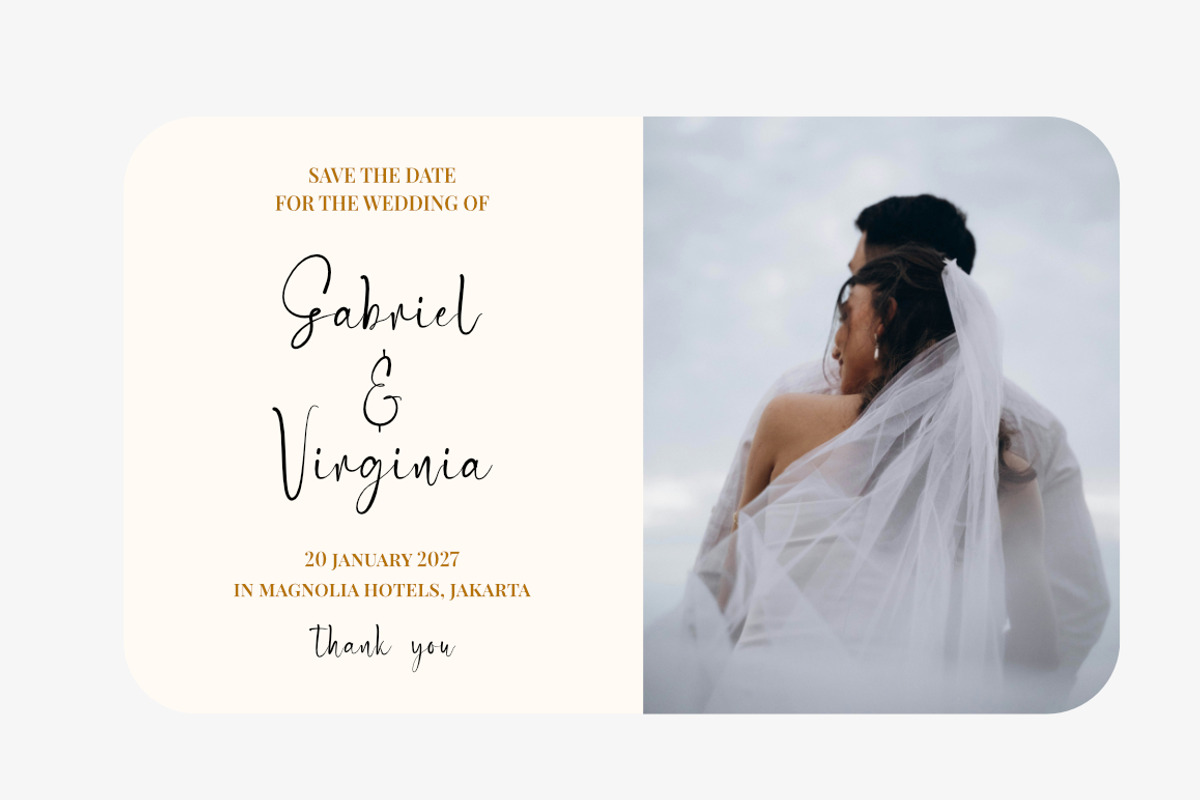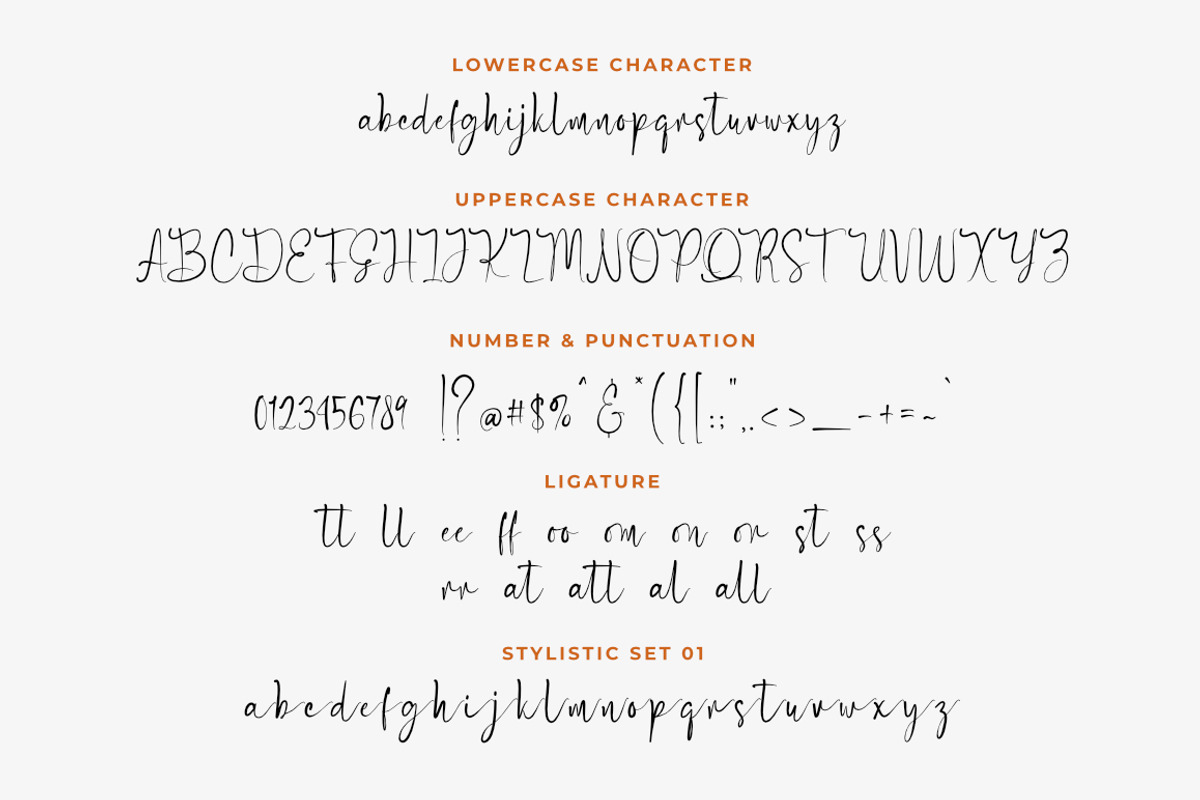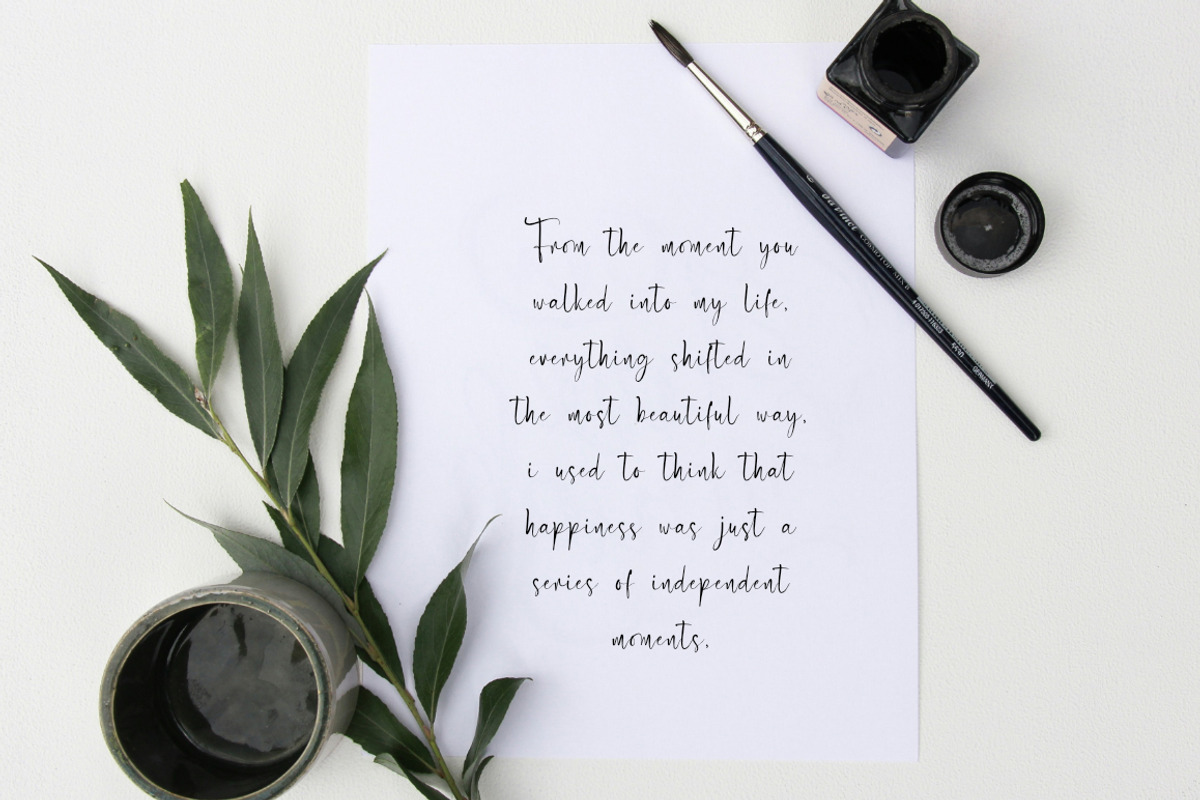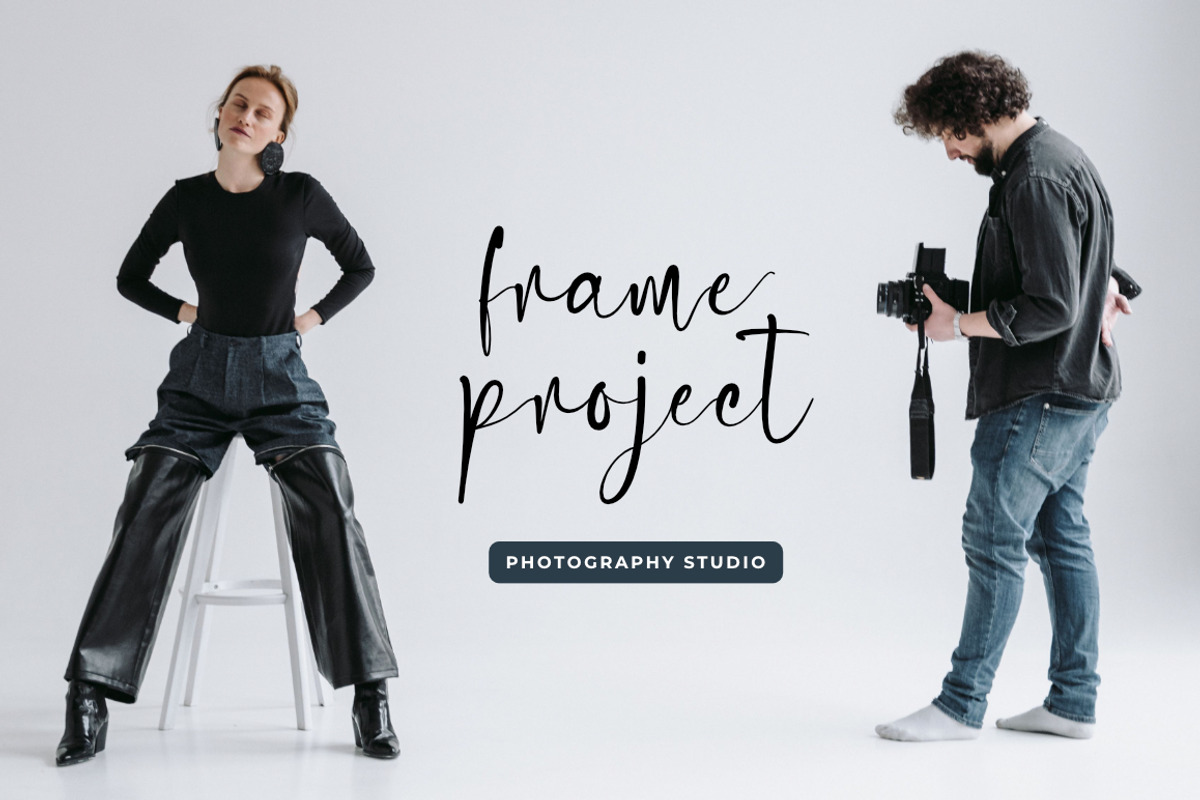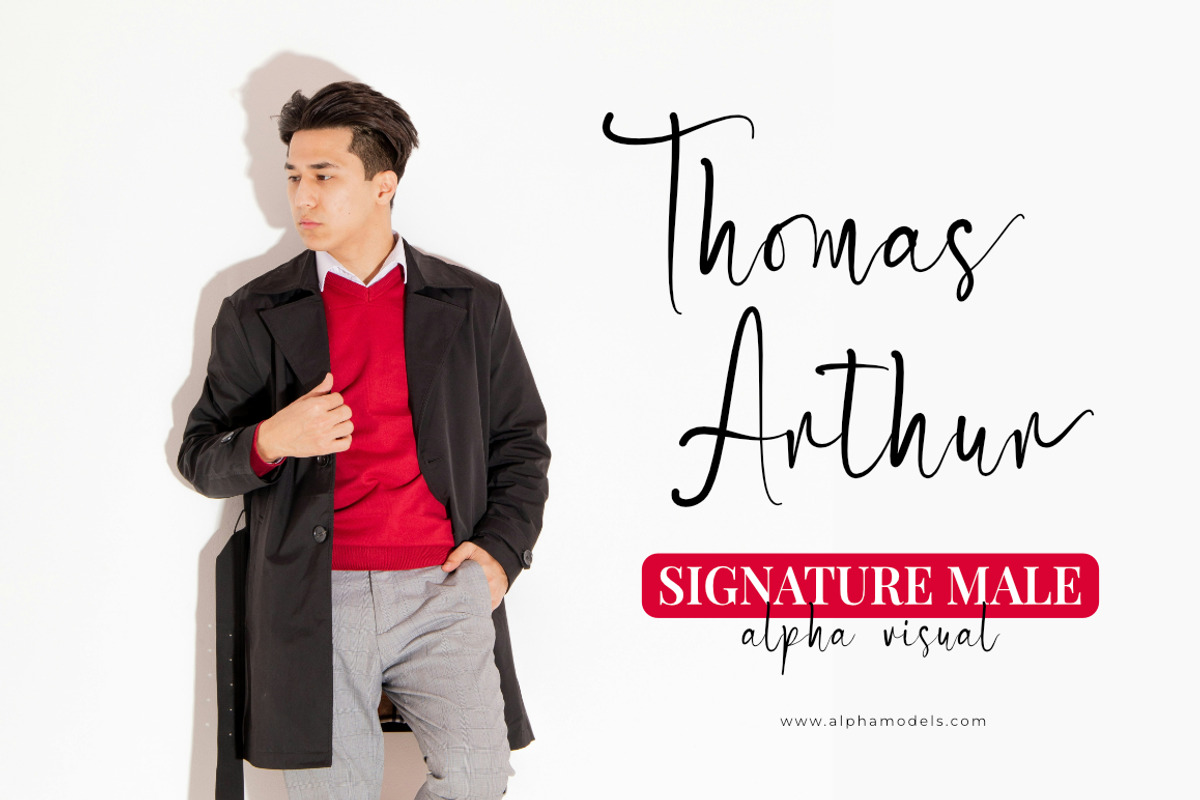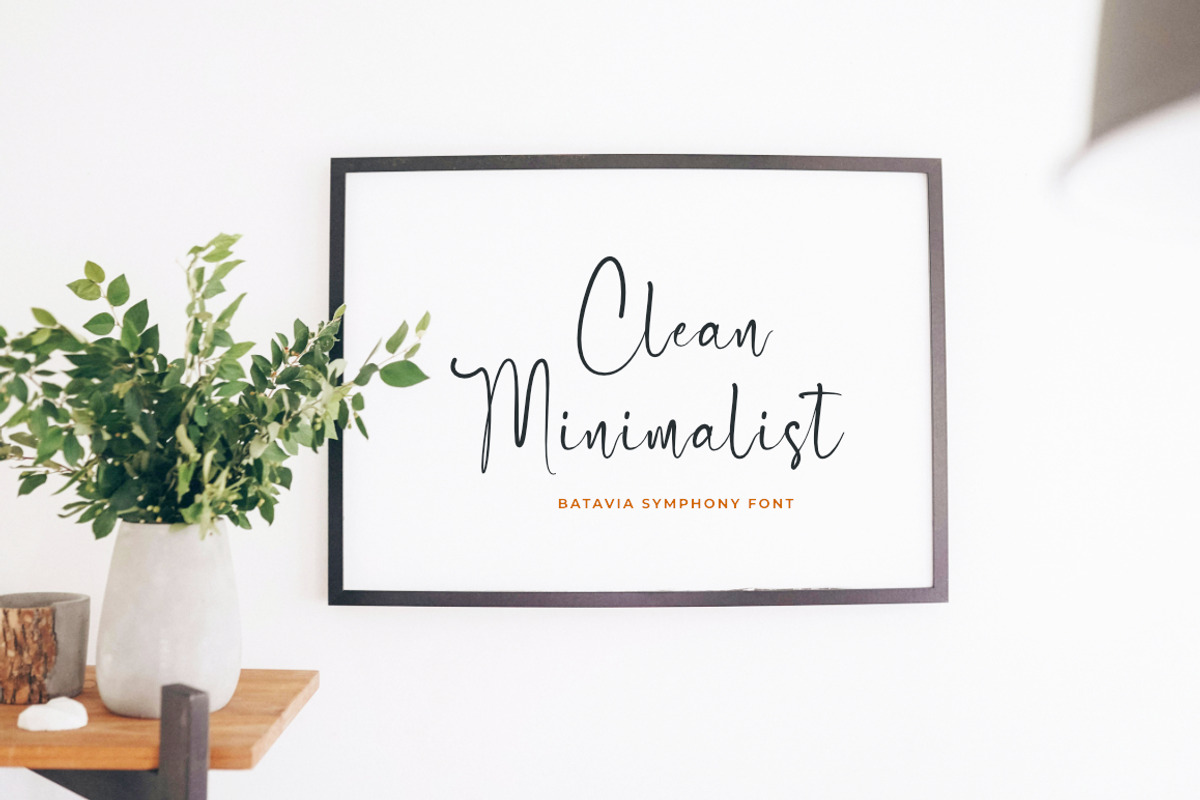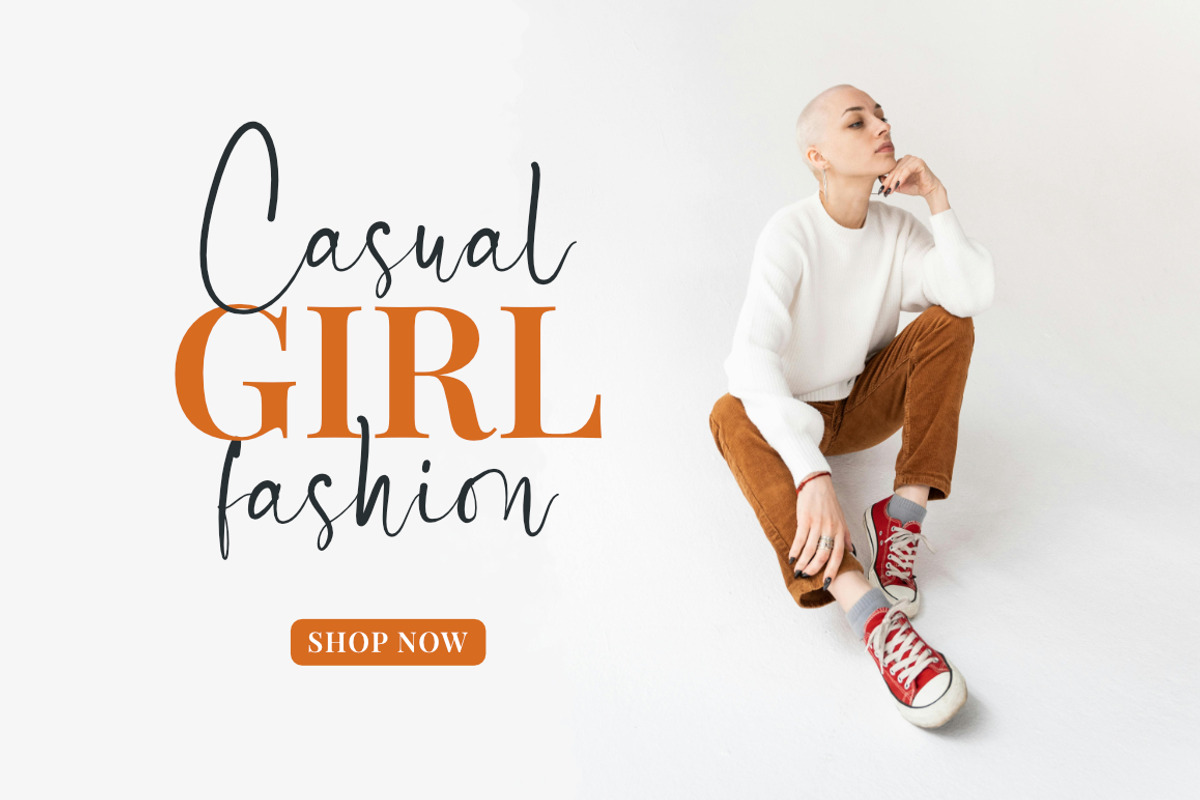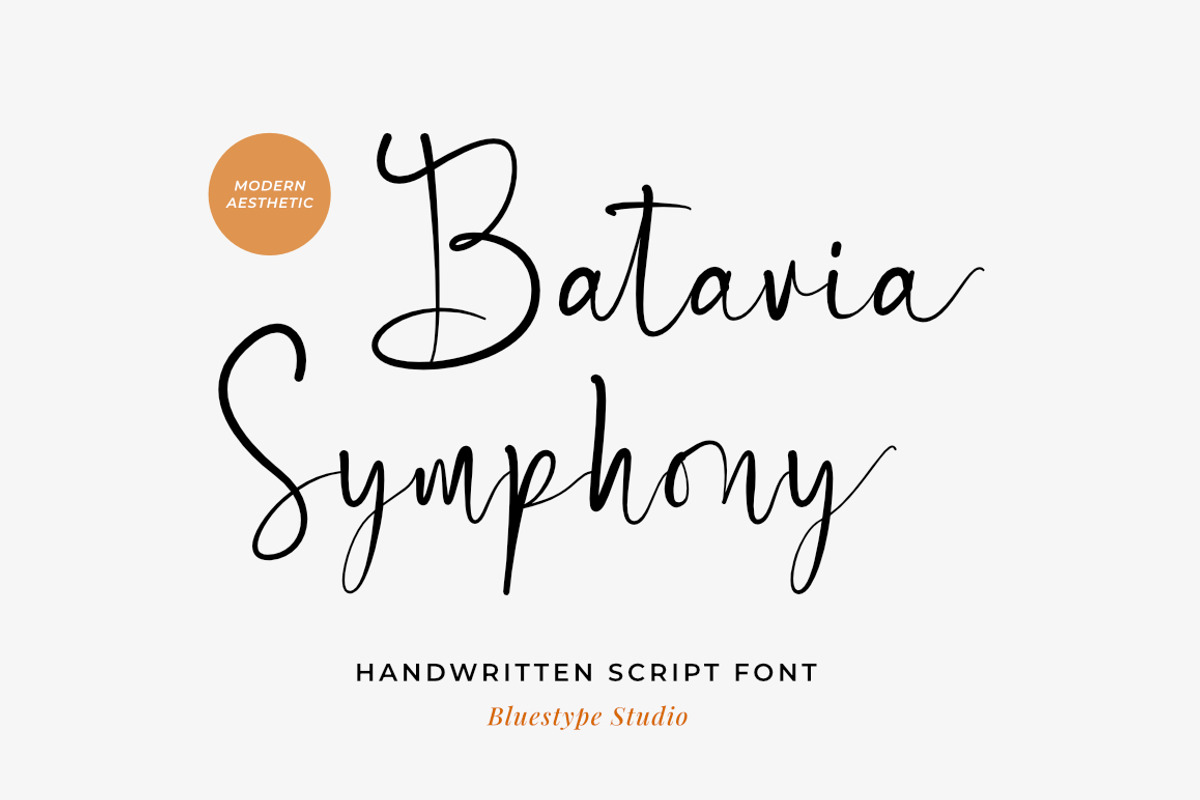
Batavia Symphony Modern Script Font
Bring Elegant Rhythm to Your Designs with Batavia Symphony
Every creative project needs a voice that feels authentic, personal, and deeply engaging. Batavia Symphony is a modern handwritten script font meticulously crafted to bring the natural fluidity of real penmanship into the digital space. Inspired by rhythmic, expressive brush strokes, this typeface effortlessly balances contemporary style with timeless elegance.
With its organic connections and clean, sweeping curves, Batavia Symphony feels alive on the page. It transforms ordinary text into a beautiful visual statement, making it the perfect choice for creators who want to add a high-end, bespoke touch to their branding.
What Features Are Included?
Complete Alphabet: Full set of uppercase and lowercase letters.
Numbers & Core Glyphs: Standard numerals and comprehensive punctuation marks.
Natural Ligatures: Pre-designed letter combinations that ensure a seamless, non-rigid flow.
Stylistic Set for alternate glyph
Best Use Cases This versatile script font adapts beautifully across various design landscapes. It is ideal for:
Elegant wedding invitations and RSVP cards.
Luxury lifestyle branding, logos, and business cards.
Chic social media graphics and quote layouts.
Contemporary product packaging, cosmetics, and apparel design.